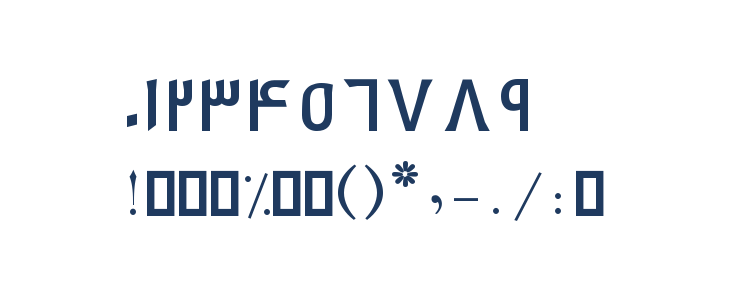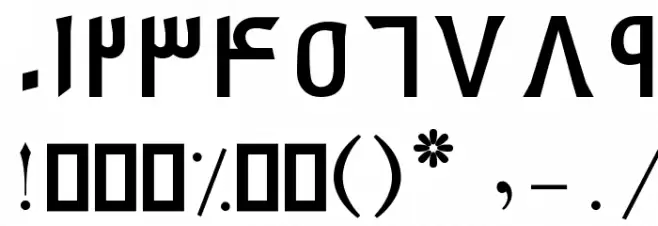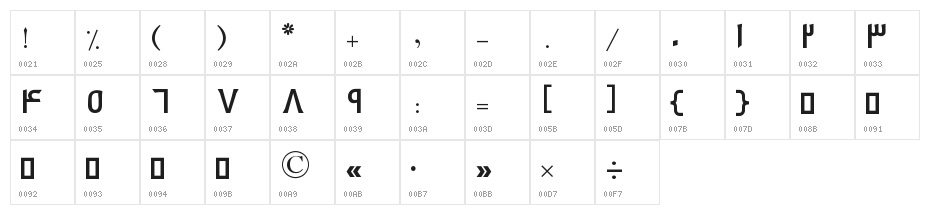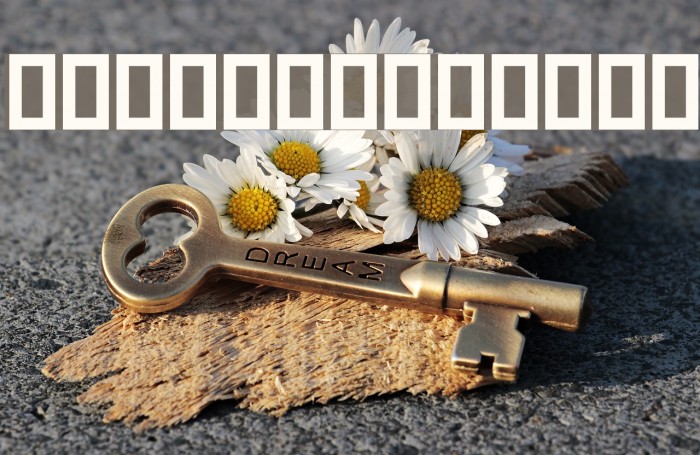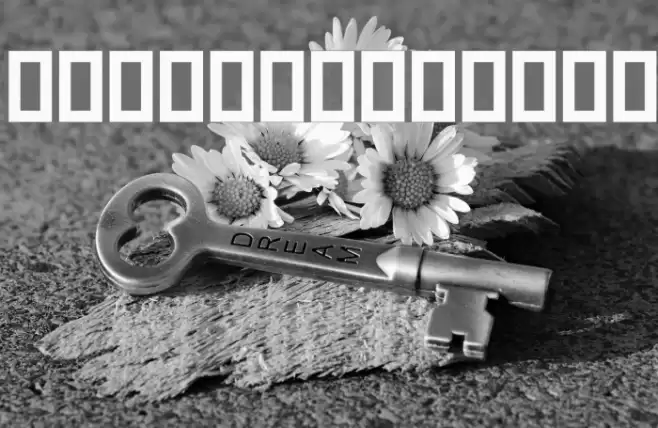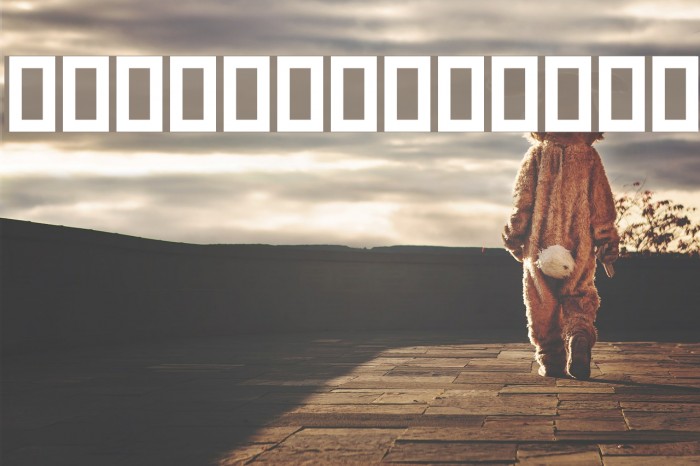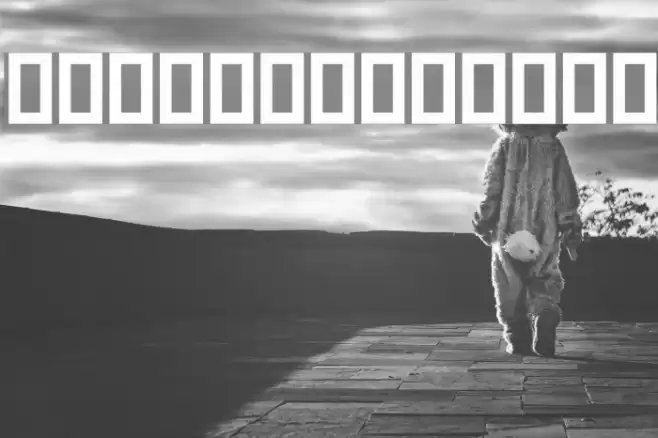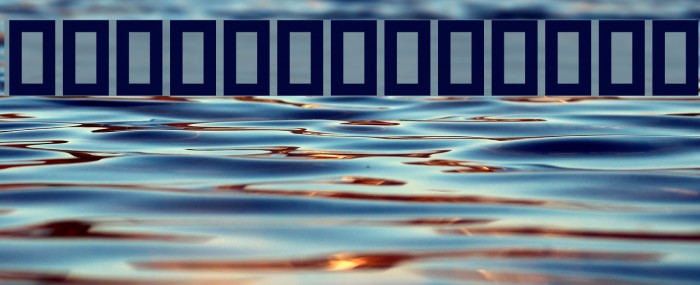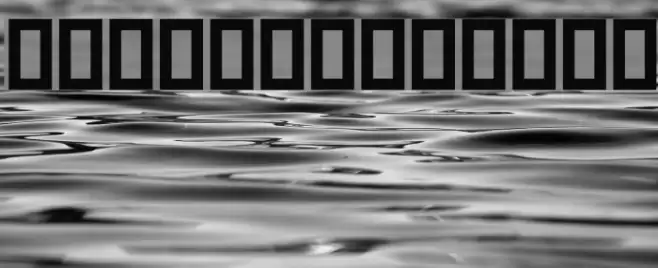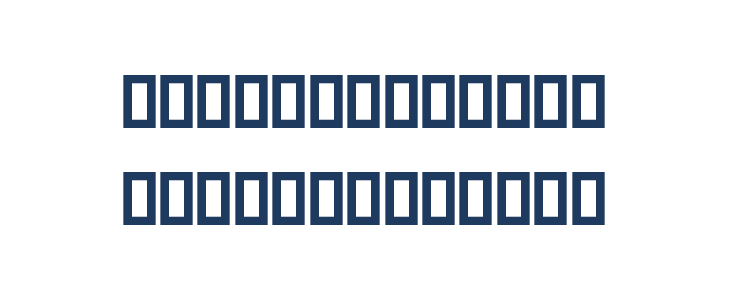
Gitaa Font
Gitaa Description
This font features a unique and modern design with geometric shapes and sharp angles. The characters are bold and have a futuristic feel, making them stand out with a strong presence. The numerals are particularly distinctive, with angular forms that add to the overall modern aesthetic. The special characters maintain the same geometric style, ensuring consistency throughout the font. This typeface is ideal for projects that require a bold and contemporary look.
| Proposed Projects | Ideal for branding, posters, and digital media that require a modern and bold aesthetic. |